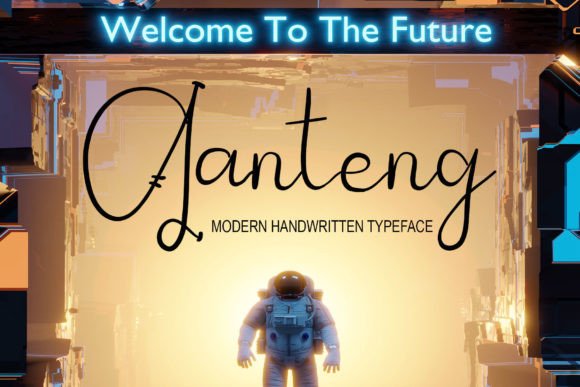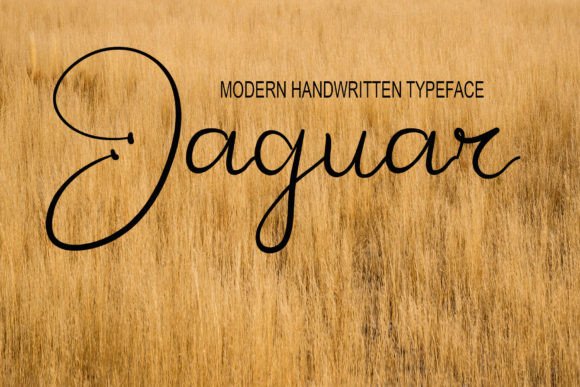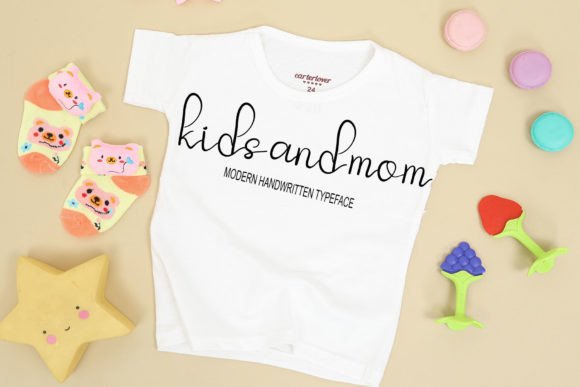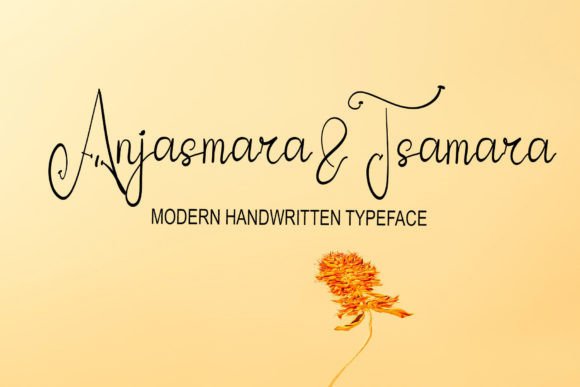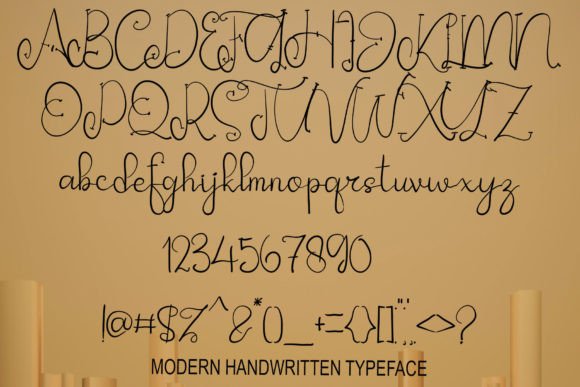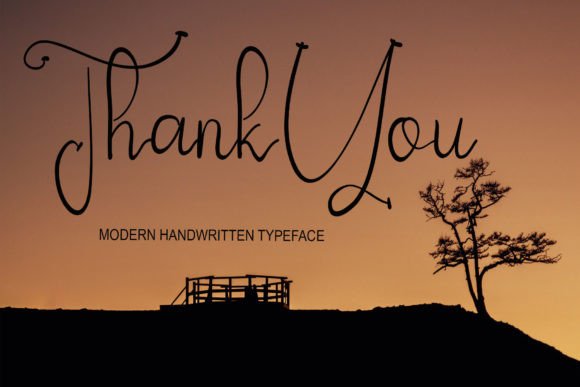
Ganteng Font
About Ganteng Font
The Ganteng Font download introduces a modern handwritten typeface created using a digital tablet. This font blends simplicity with a stylish, relaxed form—perfect for personal and commercial projects alike. Whether you’re designing for print or web, Ganteng adds a unique handwritten flair that feels professional yet personal.
Its clean lines and hand-crafted look make it incredibly versatile, allowing you to use it across multiple mediums without sacrificing legibility or character. The font stands out in both casual and formal contexts, adding a fresh, authentic tone to your creative output.
The Ganteng Font download is an excellent choice for creatives, marketers, and designers looking for a clean but expressive handwritten typeface. Designed with a modern approach, it maintains a natural handwriting appearance while keeping the structure balanced and readable.
Key features include:
• Smooth and natural handwritten flow
• Stylish enough for high-end design projects
• Easy to pair with other fonts
• Ideal for print and digital formats
This handwritten script brings warmth and approachability, making it a go-to font for anyone looking to personalize their designs with elegance and clarity.
Ideal Use Cases
With its authentic pen-like strokes and clean form, the Ganteng Font download works beautifully in various applications:
• Wedding invitations and greeting cards
• Website headers and blog graphics
• Digital ads and product promotions
• Brand signatures and logos
• Business cards and personal stationery
• Social media quotes and posts
From casual branding to formal events, Ganteng strikes a perfect balance between style and function. It elevates your message while maintaining a relaxed, friendly vibe.
Bring Personality to Every Project
What sets the Ganteng Font download apart is its ability to communicate creativity and sincerity in one neat package. The subtle curves and look suggest care, making your projects feel more personal. It works equally well in minimalist designs or richly layered layouts.
Whether you’re creating an invitation, launching a product, or designing your portfolio, Ganteng ensures your work looks polished and original.